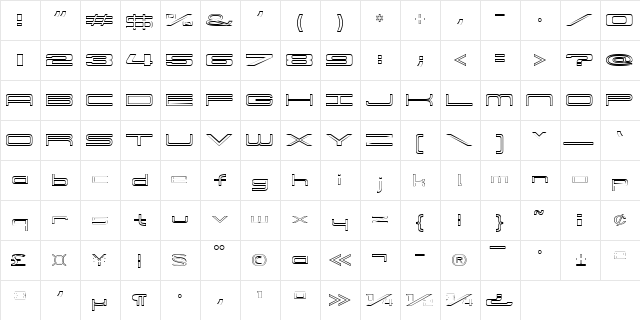
914-OUTLINE Regular
Design Context for 914-OUTLINE Typeface
914-OUTLINE brings ornamental detail and strong personality to headlines and identities, where visual impact matters more than quiet functionality.
Font Pairing: Pair with a clean neutral sans-serif for body copy to let 914-OUTLINE's character lead without overwhelming the composition.
Pro Tip: Use 914-OUTLINE exclusively at display sizes — it was designed to be seen, not read at length. Let a neutral companion handle body copy.